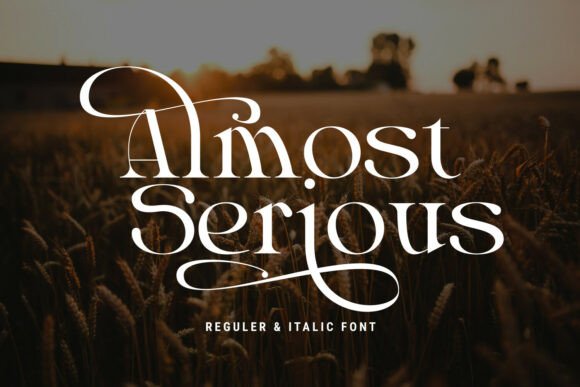
The Almost Serious Font: A Designer’s New Best Friend
I’ll never forget the time I was working on a luxury branding project for a high-end fashion client. I had spent hours perfecting the logo design, but something was off. The font I had chosen just didn’t feel luxurious enough. I scoured the internet for the perfect serif font, but nothing seemed quite right. That was until I stumbled upon the Almost Serious font. ✨
With its modern luxury style and sleek lines, it was exactly what I needed to elevate my design. The Almost Serious font includes uppercase letters, numerals, and a wide range of punctuation, making it perfect for a variety of design applications. In this article, I’ll share my experience with this versatile font, its features, and how to get the most out of it.
• ✅ The modern luxury style that adds a touch of sophistication to any design
• ✅ The inclusion of ligatures, which add a nice touch of elegance
• ✅ The wide range of punctuation and numerals, making it suitable for a variety of design applications
• ✅ The serif design, which adds a level of professionalism and polish
While the Almost Serious font is an excellent choice, there are a few things to keep in mind 🤔:
• ⚠️ Some users may find the font a bit too ornate for certain design applications
• ⚠️ The font may not be suitable for body text, as it’s more designed for headlines and titles
If you like the Almost Serious font, you may also want to consider the following alternatives:
• Playfair Display: A luxurious serif font with a similar feel to Almost Serious. Use it for high-end branding and advertising projects.
• Raleway: A modern sans-serif font with a similar elegance to Almost Serious. Use it for digital design projects, such as websites and social media graphics.
• Merriweather: A classic serif font with a similar traditional feel to Almost Serious. Use it for print design projects, such as brochures and magazines.
• Lato: A modern sans-serif font with a similar clean and elegant feel to Almost Serious. Use it for digital design projects, such as websites and email marketing campaigns.
The Story Behind Almost Serious
The Almost Serious font was designed with the modern designer in mind. Its creator wanted to craft a font that was both elegant and versatile, suitable for a wide range of design applications. The font’s modern luxury style is perfect for branding, advertising, and editorial design projects. 💡
Q: Is Almost Serious suitable for body text?
A: While Almost Serious is a beautiful font, it’s more designed for headlines and titles. You may want to consider a different font for body text.